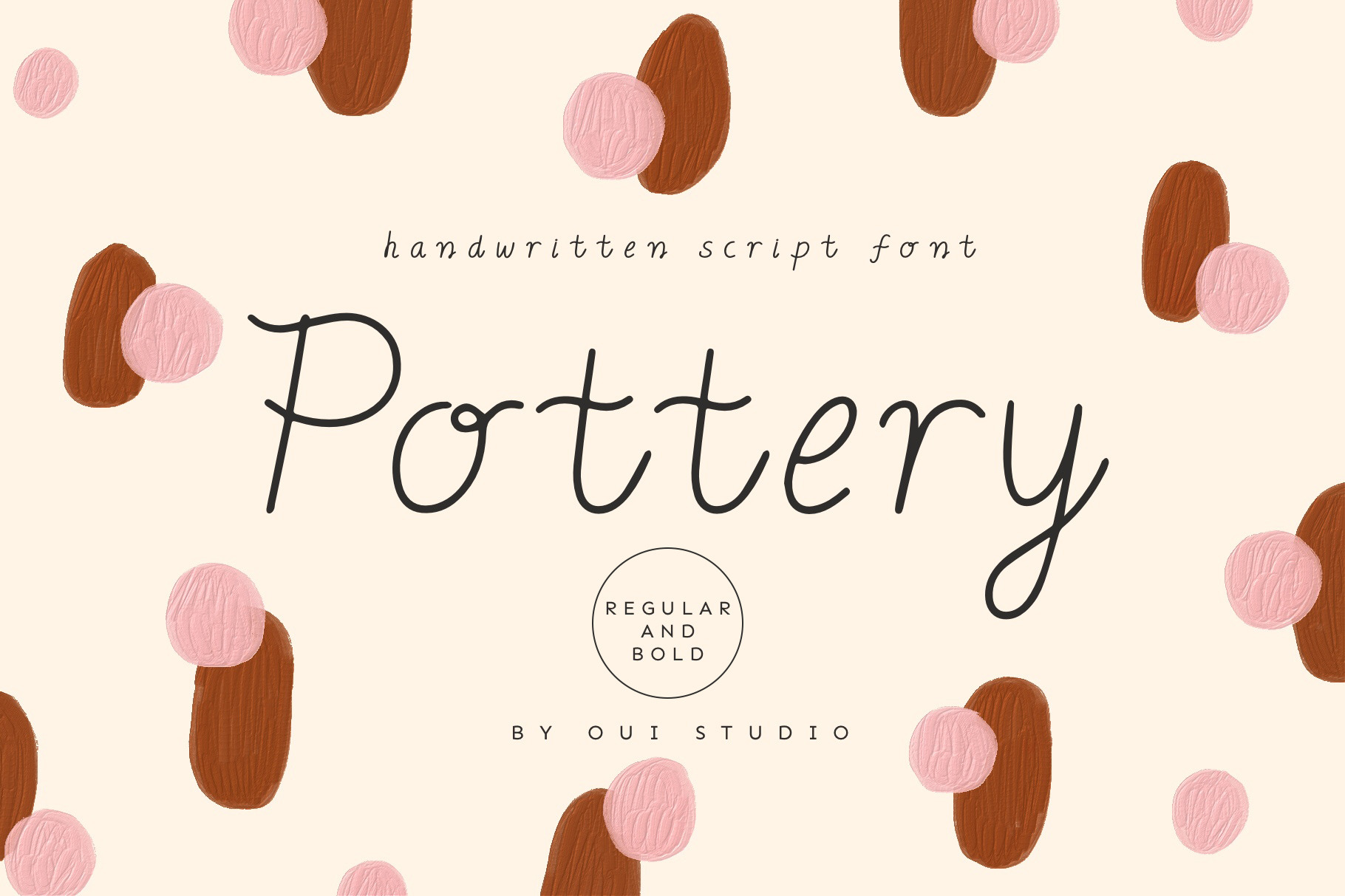
Pottery Handwritten Script Font
Hello friends! Inspired by natural lines when making ceramics, Pottery - a handwritten script font. This font comes in two types: Regular and Bold.
The clean, natural characters in this font go well with serif fonts - ideal for elegant or natural branding, logo design, social media, menu books, wedding invitations, and more.